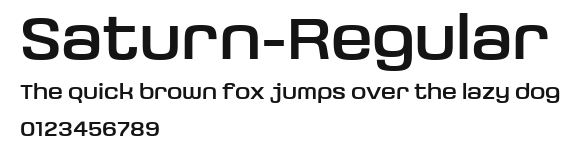
Saturn-Regular Preview
• Font Name: Saturn-Regular
• Full Font Name: Saturn-Regular
• PostScript Name: Saturn-Regular
About Saturn-Regular.ttf
Saturn-Regular.ttf is a modern, elegant sans-serif font designed for ultimate readability and visual harmony. Perfect for branding, headlines, web design, and print materials.